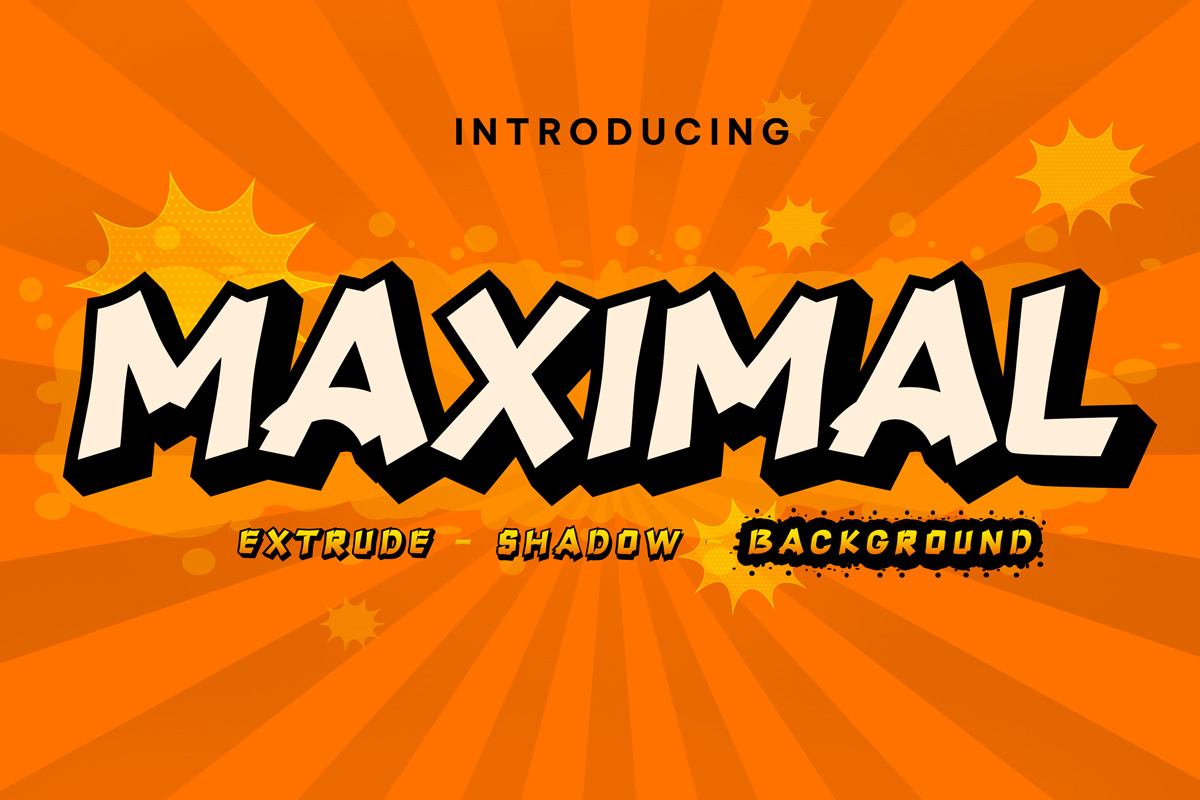
Maximal – Display Font Free Download is a bold, modern typeface designed to make a strong visual impact. With its sharp edges, wide stance, and futuristic style, Maximal is perfect for headlines, posters, tech branding, esports logos, packaging, and digital media that demands attention.
Crafted for maximum readability and high visual weight, this font excels in large-scale applications and dynamic compositions. It combines strength and style, making it ideal for contemporary and edgy design projects.